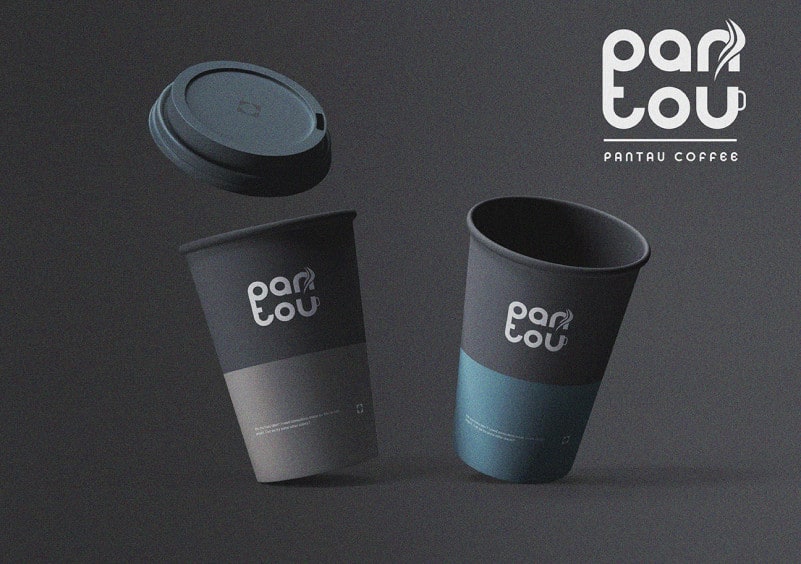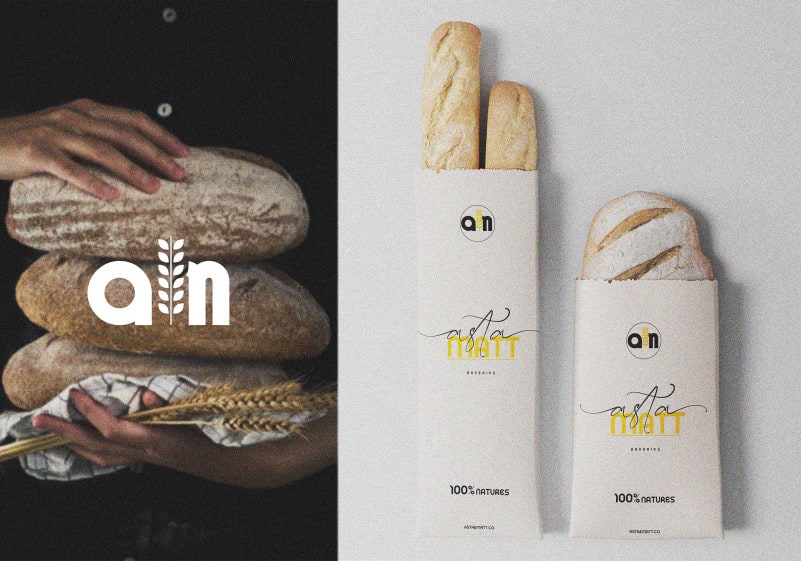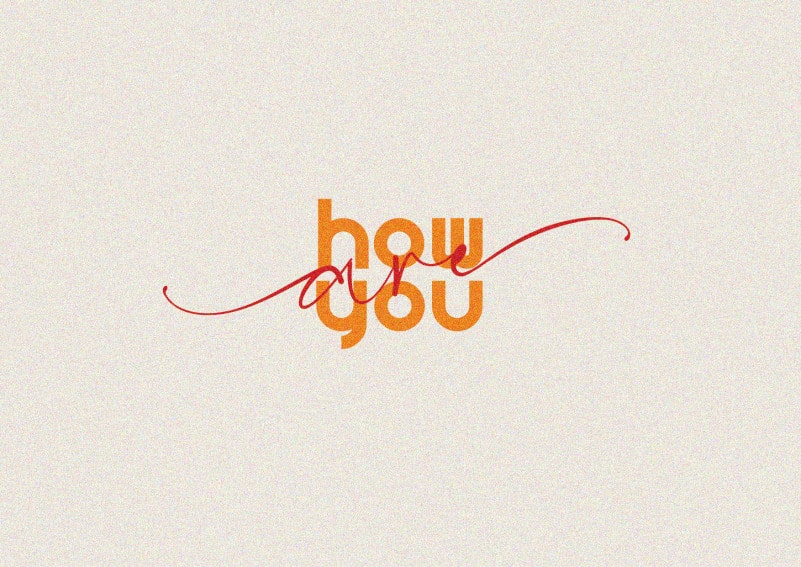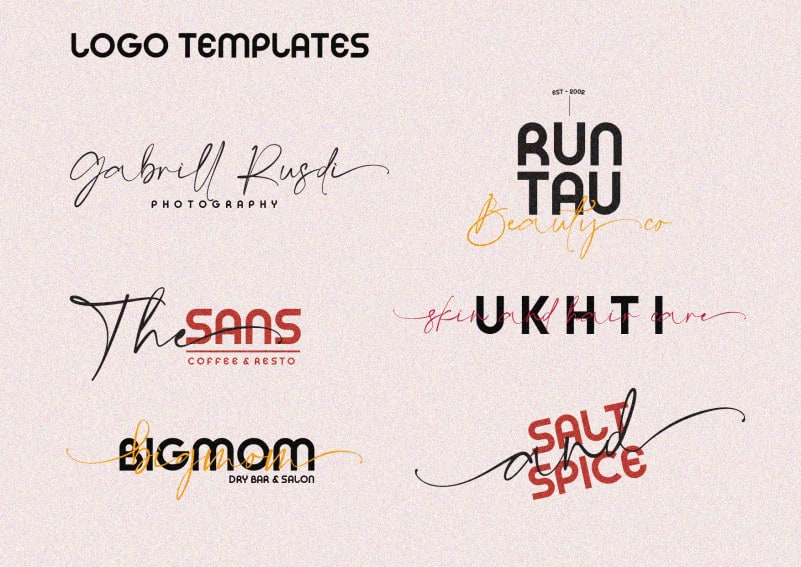
Free Gatha Font Duo
Gatha Font Duo is a playful font duo that includes a signature script and a elegant sans – already matched up and ready to be used together for your next design!